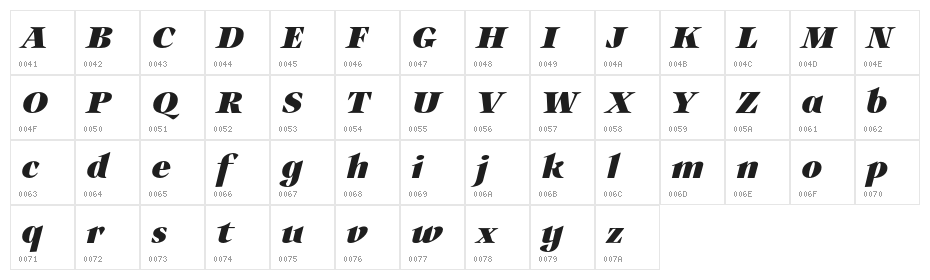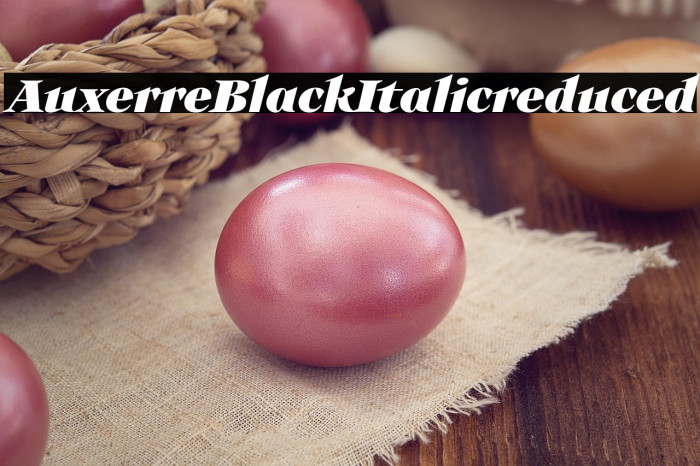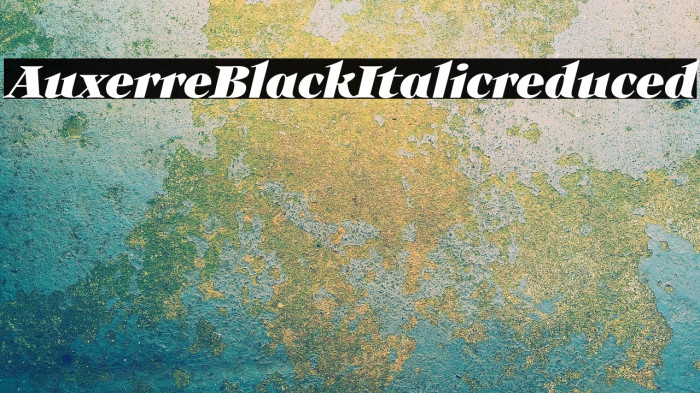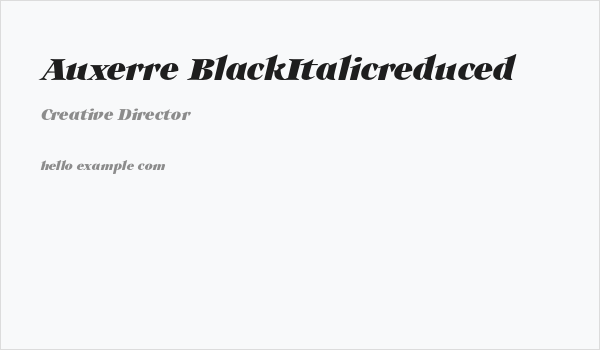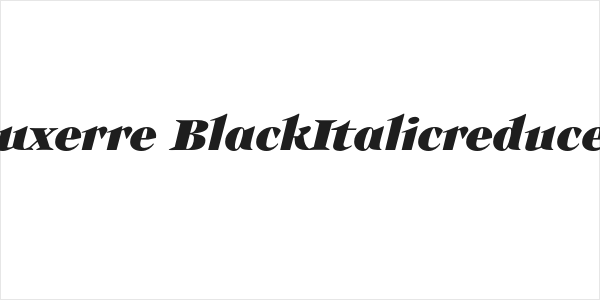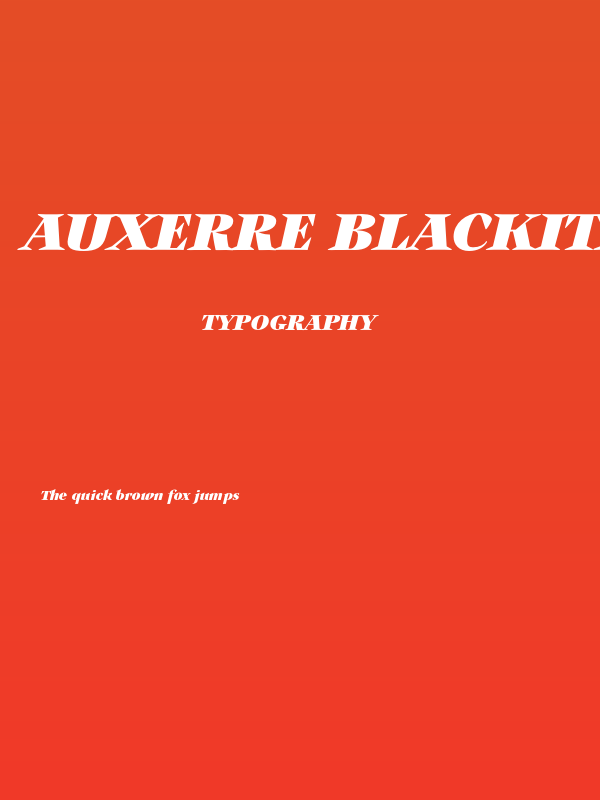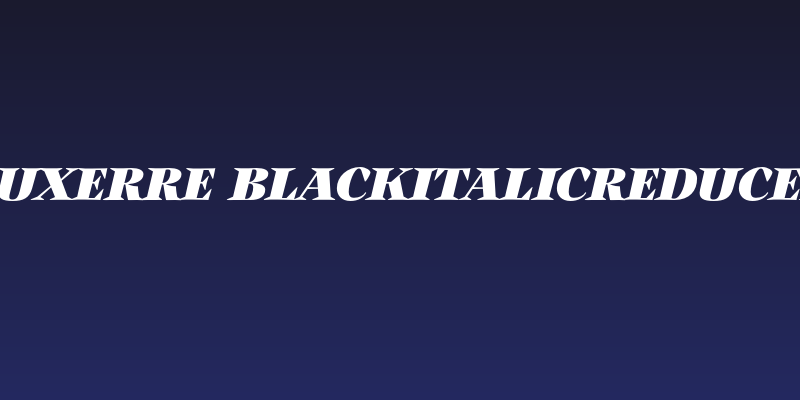
Auxerre-BlackItalicreduced Font
Auxerre-BlackItalicreduced Description
This font exhibits a bold and dynamic style with a pronounced italic slant, giving it a sense of movement and urgency. The characters are thick and robust, with sharp serifs that add a touch of elegance and authority. The uppercase letters are particularly striking, with a strong presence that commands attention. The lowercase letters maintain the same boldness, ensuring consistency throughout the typeface. The numbers and special characters are equally bold, making them stand out in any context. This font's unique style makes it suitable for impactful headlines and titles.
| Proposed Projects | Ideal for magazine covers, advertising headlines, branding materials, and any project requiring a strong, impactful typeface. |